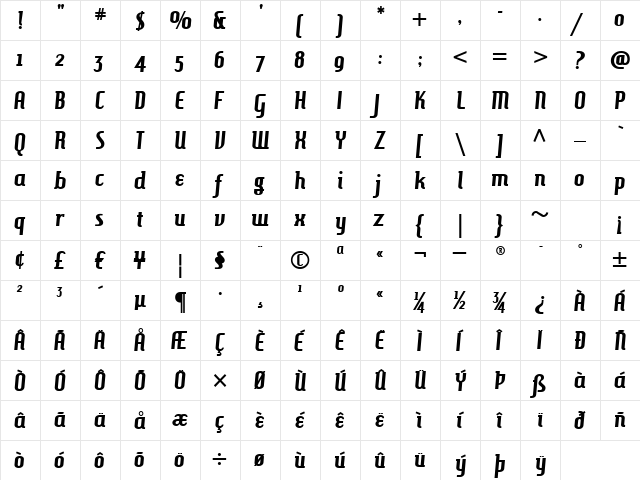
HamburgerHeaven Regular
| Foundry | Nick's Fonts |
| Designer | Nick Curtis |
Design Context for HamburgerHeaven Typeface
HamburgerHeaven offers clean, dependable letterforms without strong stylistic allegiance, making it a practical choice for designers who need flexibility.